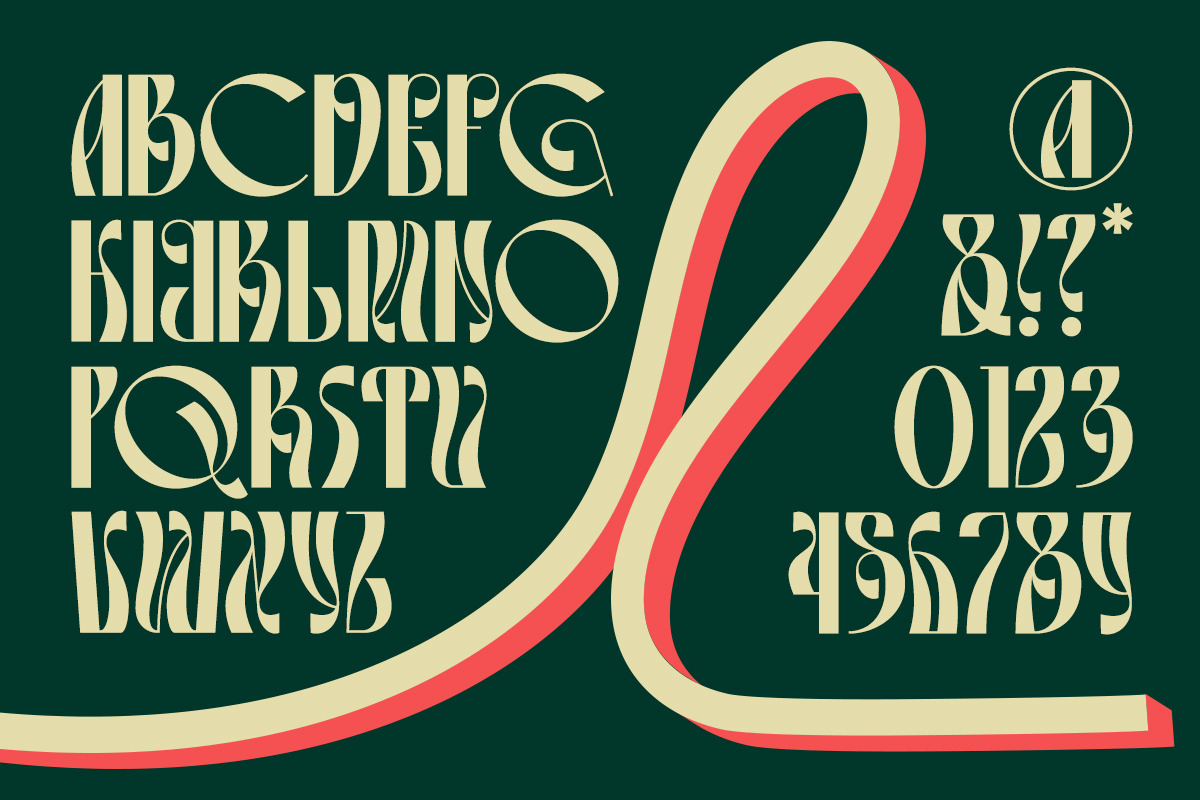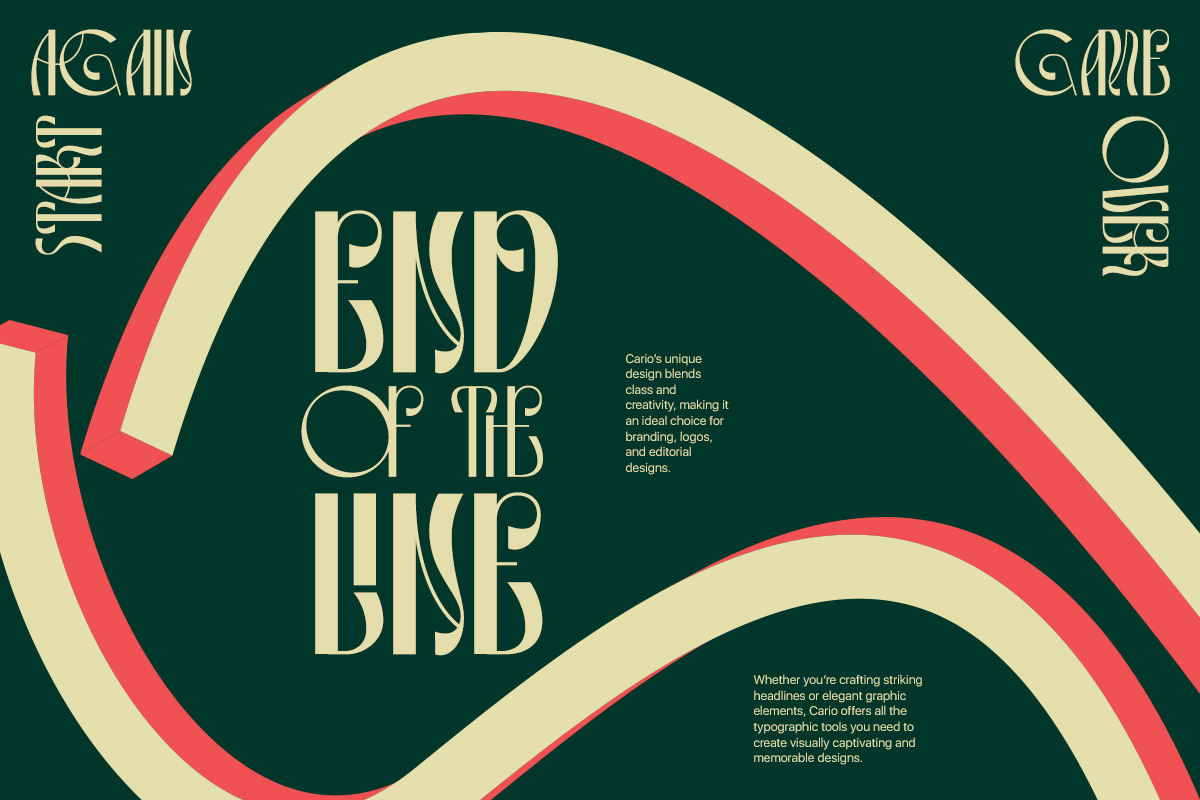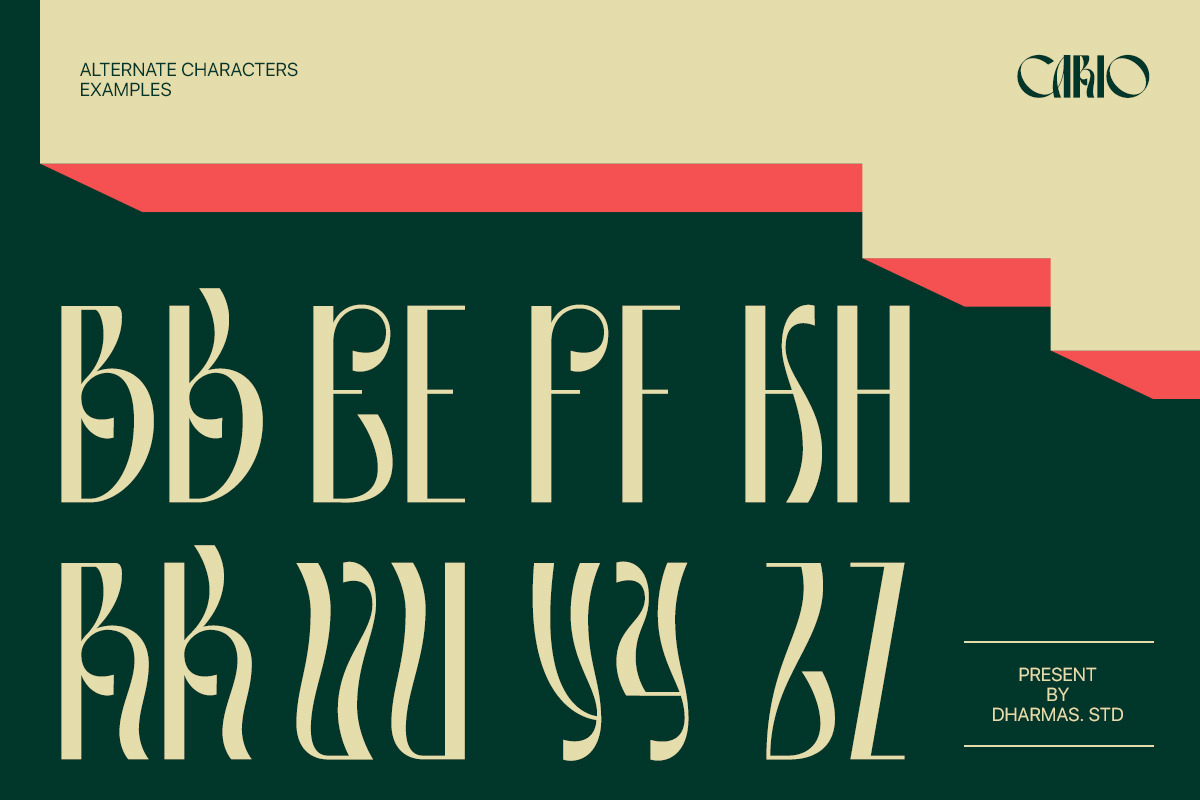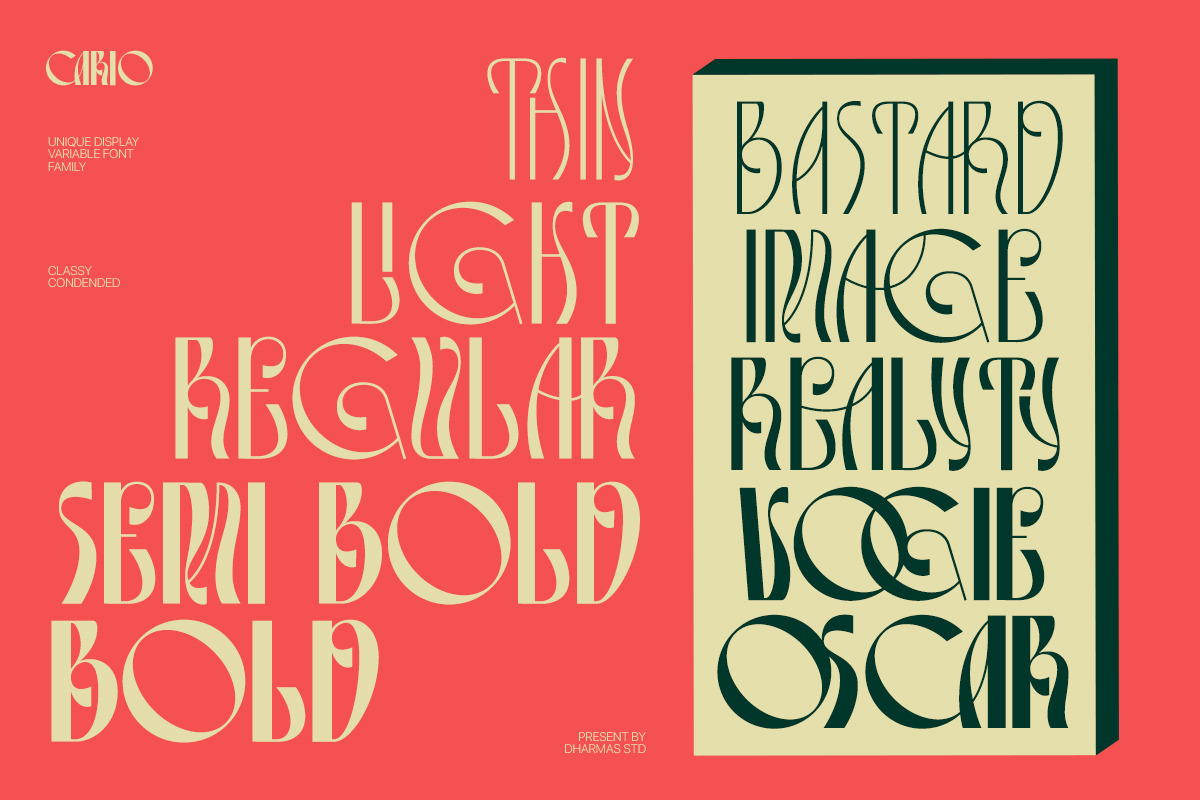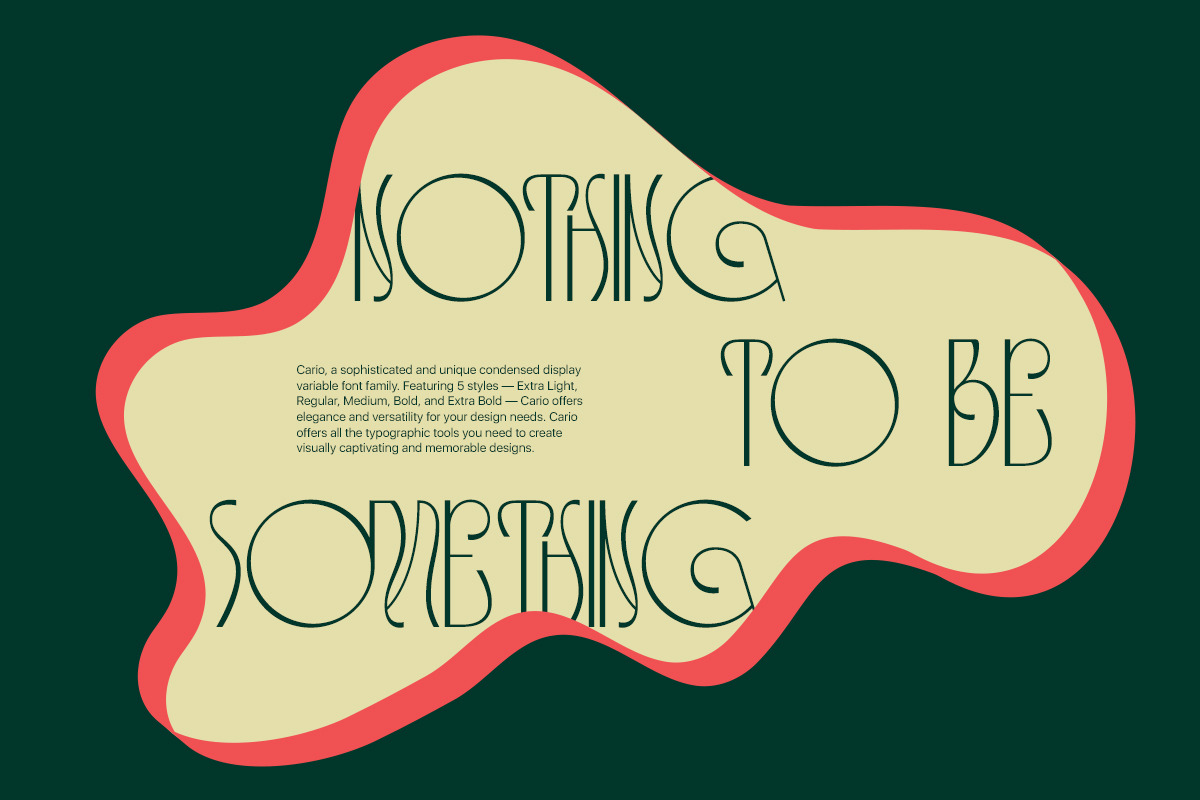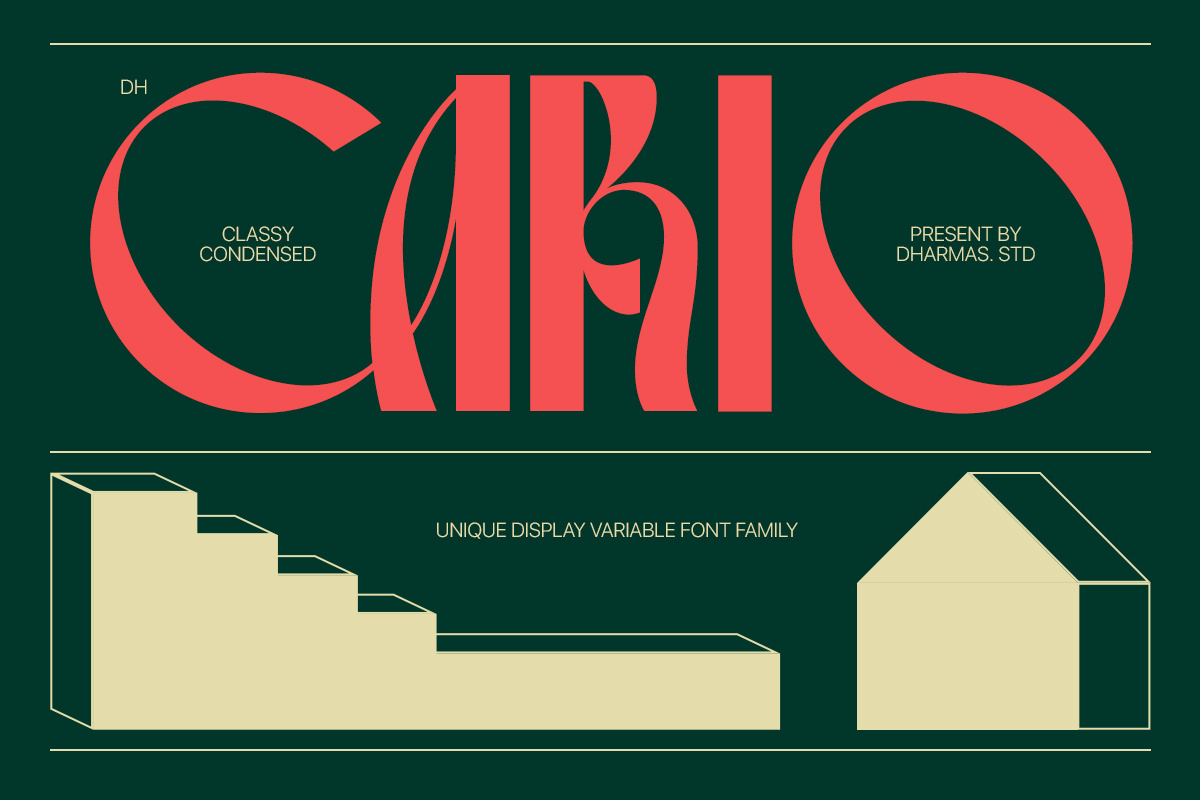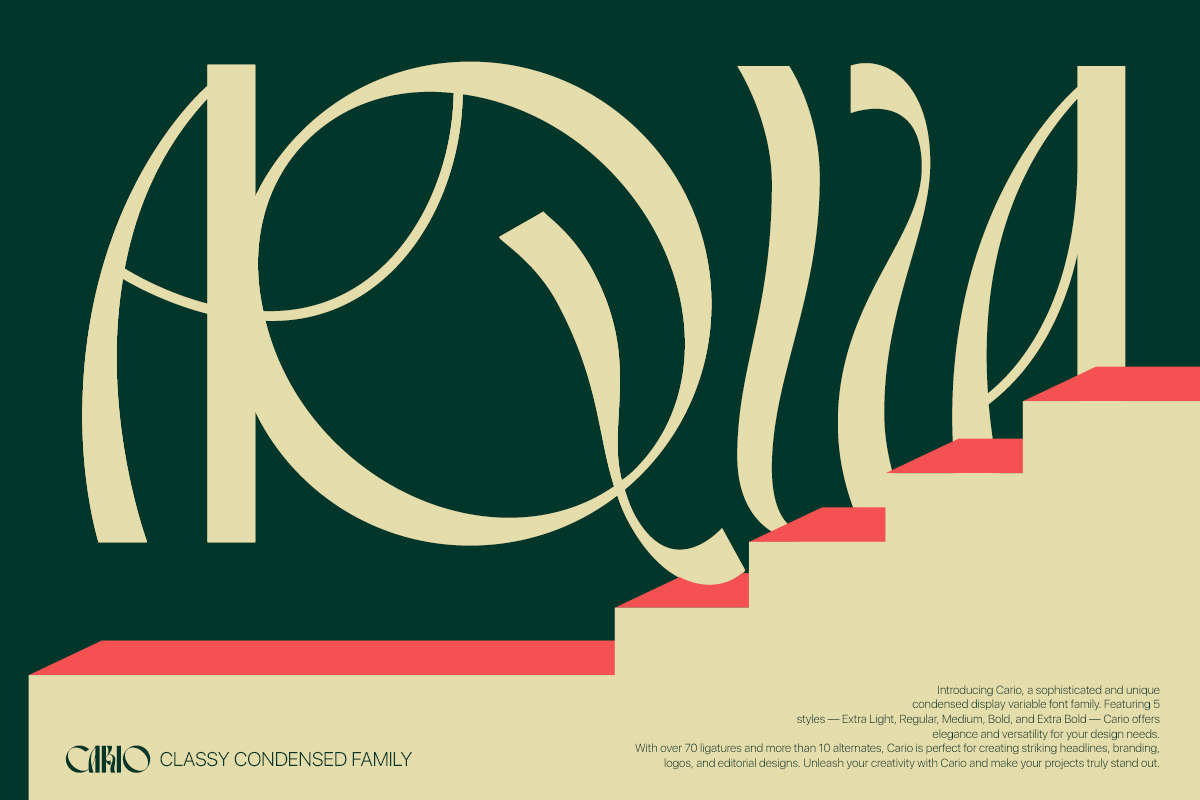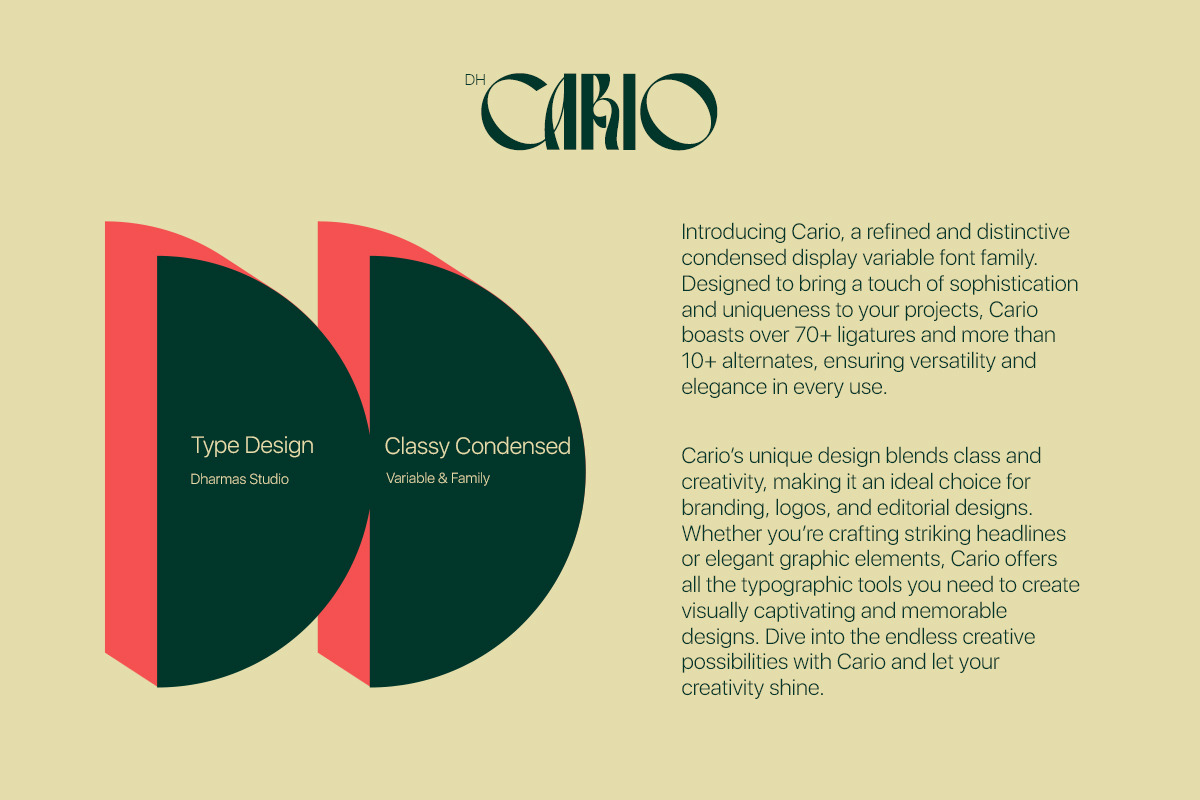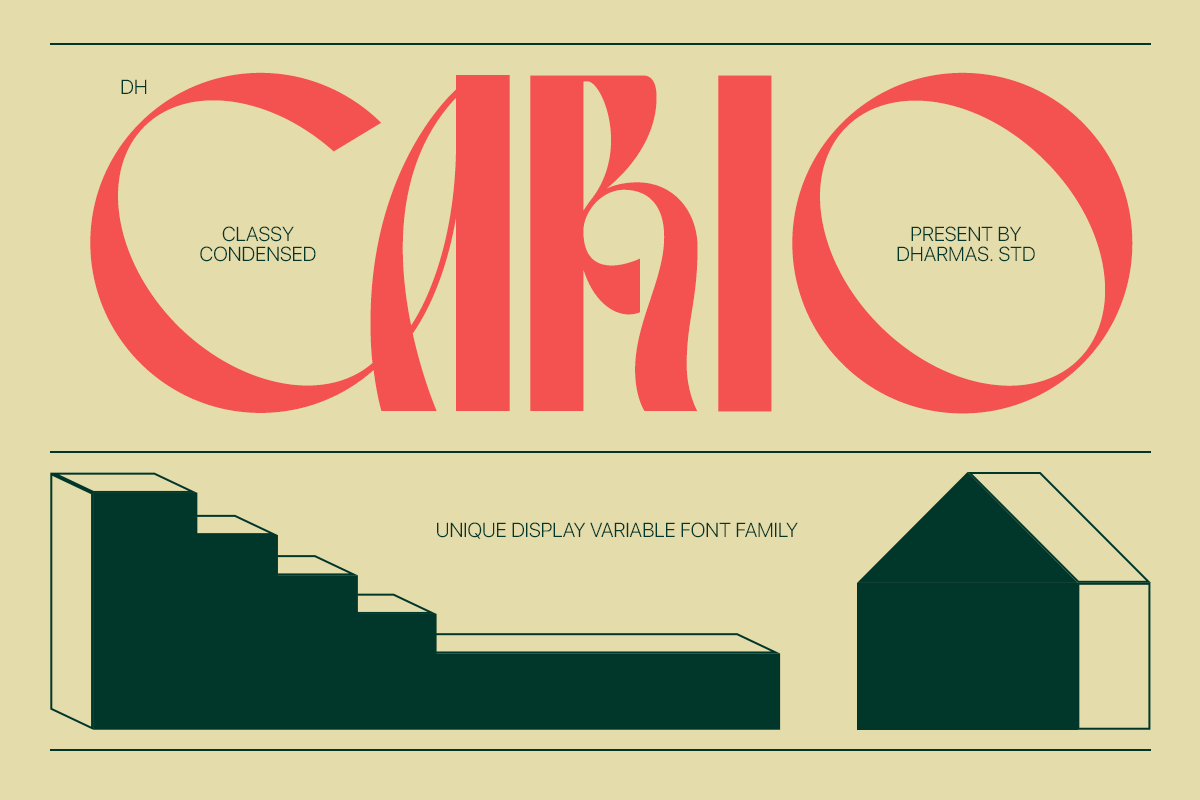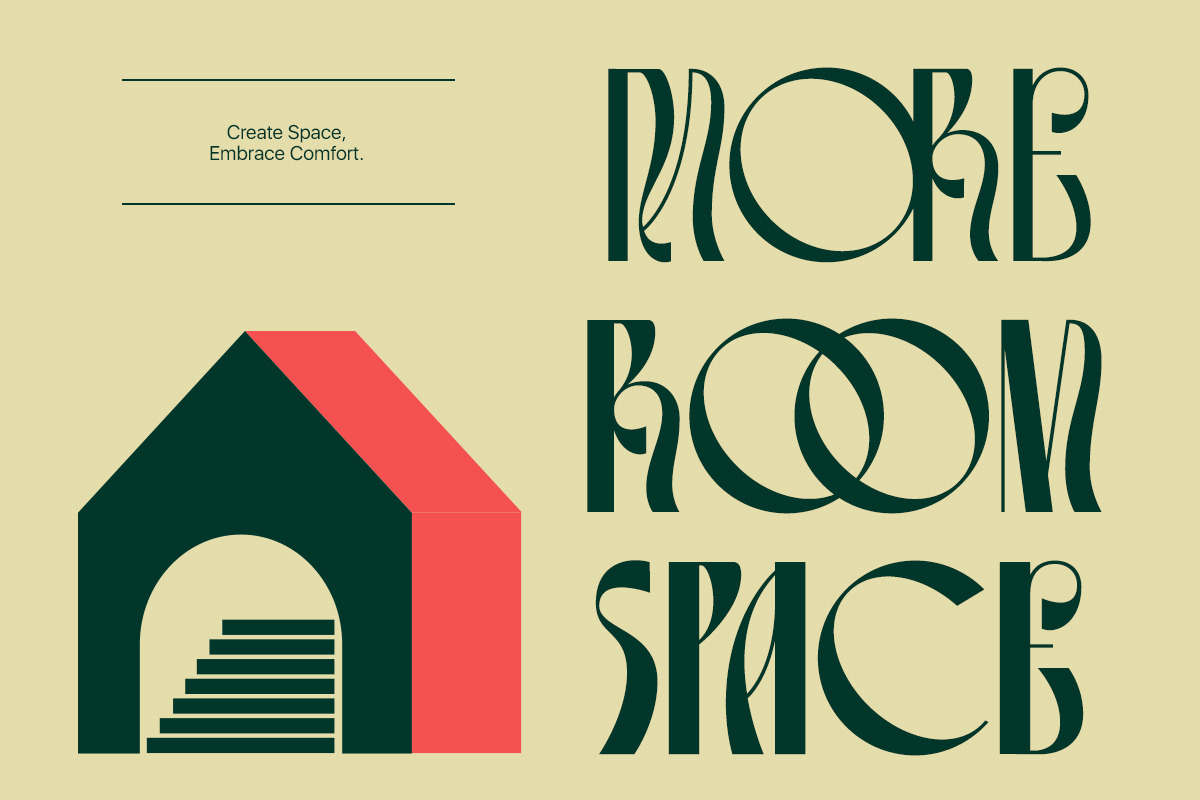
Dh Cario - 6 Display Variable Font
Dh Cario is a display font created for beauty branding, fashion labels, editorial publishing, and modern product packaging. Designed for logos, magazine headlines, posters, and marketing materials, Dh Cario creates a clean and distinctive visual identity. Inspired by contemporary typography, the overall look feels elegant, modern, and expressive.
Dh Cario Font Features:
5 Weights: Thin, Light, Regular, Semi Bold, and Bold
85+ Unique Alternates and Ligatures
Letters, numbers, symbols, punctuation, special alternates
PUA Encoded Characters, fully accessible without additional design software
Multilingual Characters available for:
Afrikaans, Albanian, Asu, Basque, Bemba, Bena, Breton, Chiga, Cornish, Dutch, English, Estonian, Filipino, Finnish, Friulian, Galician, German, Gusii, Indonesian, Irish, Italian, Kabuverdianu, Kalenjin, Kinyarwanda, Luo, Luxembourgish, Luyia, Machame, Makhuwa-Meetto, Makonde, Malagasy, Manx, Morisyen, North Ndebele, Nyankole, Oromo, Portuguese, Quechua, Romansh, Rombo, Rundi, Rwa, Samburu, Sango, Sangu, Scottish Gaelic, Sena, Shambala, Shona, Soga, Somali, Spanish, Swahili, Swedish, Swiss.